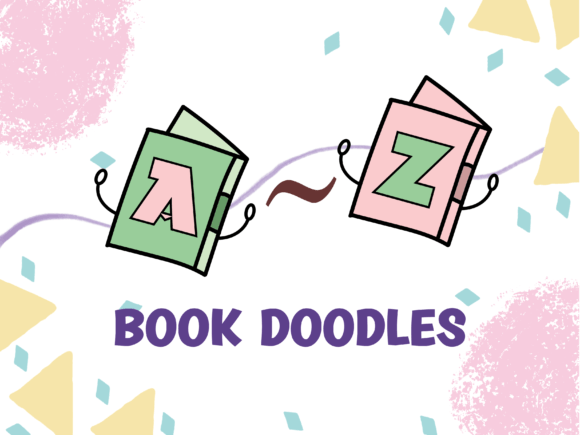
Introducing Book Doodles Font: The Perfect Addition to Your Design Arsenal
Are you a designer, crafter, or DIY enthusiast looking for a unique and playful font to elevate your creative projects? Look no further than Book Doodles Font! This delightful decorative font is designed to bring a friendly and approachable vibe to your designs, making it perfect for a wide range of applications, from stickers and posters to planners and more.
The Characteristics of Book Doodles Font
Book Doodles Font is a carefully crafted font that boasts a distinctive, hand-drawn aesthetic. Its playful and whimsical design makes it an excellent choice for projects that require a personal touch. The font’s friendly vibe is sure to capture the attention of your audience and leave a lasting impression. Whether you’re creating digital content or physical materials, Book Doodles Font is the perfect companion to help you achieve your design goals.
What Makes Book Doodles Font So Versatile?
One of the standout features of Book Doodles Font is its incredible versatility. This font can be used in a multitude of design projects, including:
- Stickers: Add a touch of personality to your stickers with Book Doodles Font. Its playful design makes it perfect for creating fun and engaging stickers that are sure to delight.
- Posters: Create eye-catching posters that showcase your brand’s personality with Book Doodles Font. Its bold and playful design ensures that your message will be heard loud and clear.
- Planners: Add a personal touch to your planners and journals with Book Doodles Font. Its friendly vibe makes it perfect for creating inspiring and motivating content.
- Digital Content: Use Book Doodles Font to create engaging digital content, such as social media graphics, blog posts, and more. Its unique design is sure to make your content stand out in a crowded online space.
Why Designers and Crafters Love Book Doodles Font
Book Doodles Font has quickly become a favorite among designers and crafters due to its unique combination of playfulness and elegance. Here are just a few reasons why:
- Easy to Read: Despite its playful design, Book Doodles Font is incredibly easy to read, making it perfect for both digital and physical applications.
- Highly Customizable: Book Doodles Font can be easily customized to fit your brand’s unique style and aesthetic. Experiment with different colors, sizes, and combinations to create a look that’s all your own.
- Time-Saving: With Book Doodles Font, you can create professional-looking designs in a fraction of the time. Its unique design eliminates the need for tedious formatting and editing.
Tips for Getting the Most Out of Book Doodles Font
To help you get started with Book Doodles Font, here are a few expert tips:
- Experiment with Colors: Don’t be afraid to try out different color combinations to find the perfect match for your design.
- Mix and Match: Combine Book Doodles Font with other fonts and design elements to create a unique and visually appealing design.
- Keep it Simple: Don’t overcomplicate your design. Book Doodles Font is perfect for simple, yet effective designs that get your message across.
Book Doodles Font is a game-changing decorative font that’s perfect for designers, crafters, and DIY enthusiasts. Its friendly vibe, playful design, and incredible versatility make it an excellent addition to any design arsenal. Whether you’re creating stickers, posters, planners, or digital content, Book Doodles Font is the perfect companion to help you achieve your creative goals. So why wait? Download Book Doodles Font today and start creating designs that are sure to delight!